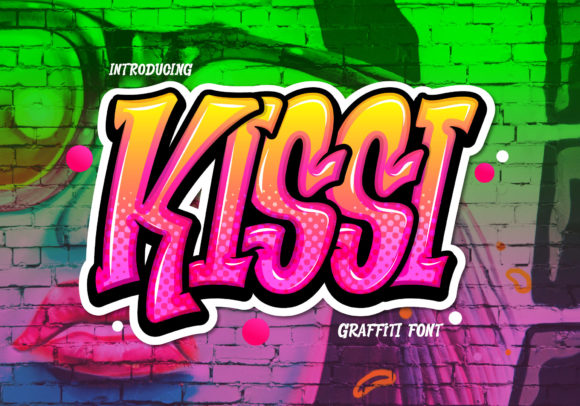
Introducing Kissi Font - a captivating new display font that exudes an electrifying street art vibe, sure to make your designs stand out like never before. With its bold and graffiti-inspired aesthetic, Kissi is the ultimate font choice for those seeking to create designs that scream individuality and urban flair.
Unleash your creativity with Kissi and effortlessly craft designs that radiate with attitude and style. Picture this: your t-shirts adorned with eye-catching slogans, emboldened by Kissi's unique lettering. Imagine your sportswear designs exuding an aura of athleticism and energy, thanks to Kissi's dynamic and sporty character. And let's not forget logos that demand attention, advertisements that captivate audiences, and clothing that speaks volumes about your brand's personality - all made possible with the magic of Kissi.
But Kissi's charm doesn't end there. Its versatility extends far beyond streetwear and urban designs. Channel your imagination and let Kissi transform your projects with its limitless possibilities. Create posters that ignite excitement, flyers that buzz with energy, and social media graphics that spark engagement - all infused with Kissi's vibrant and captivating essence.
Embrace the artistic energy of Kissi and let your designs dance to the beat of its unique rhythm. Its bold and graffiti-like strokes will breathe life into your creations, adding a touch of edginess and personality that will leave a lasting impression. So why settle for ordinary when you can unleash the extraordinary with Kissi?